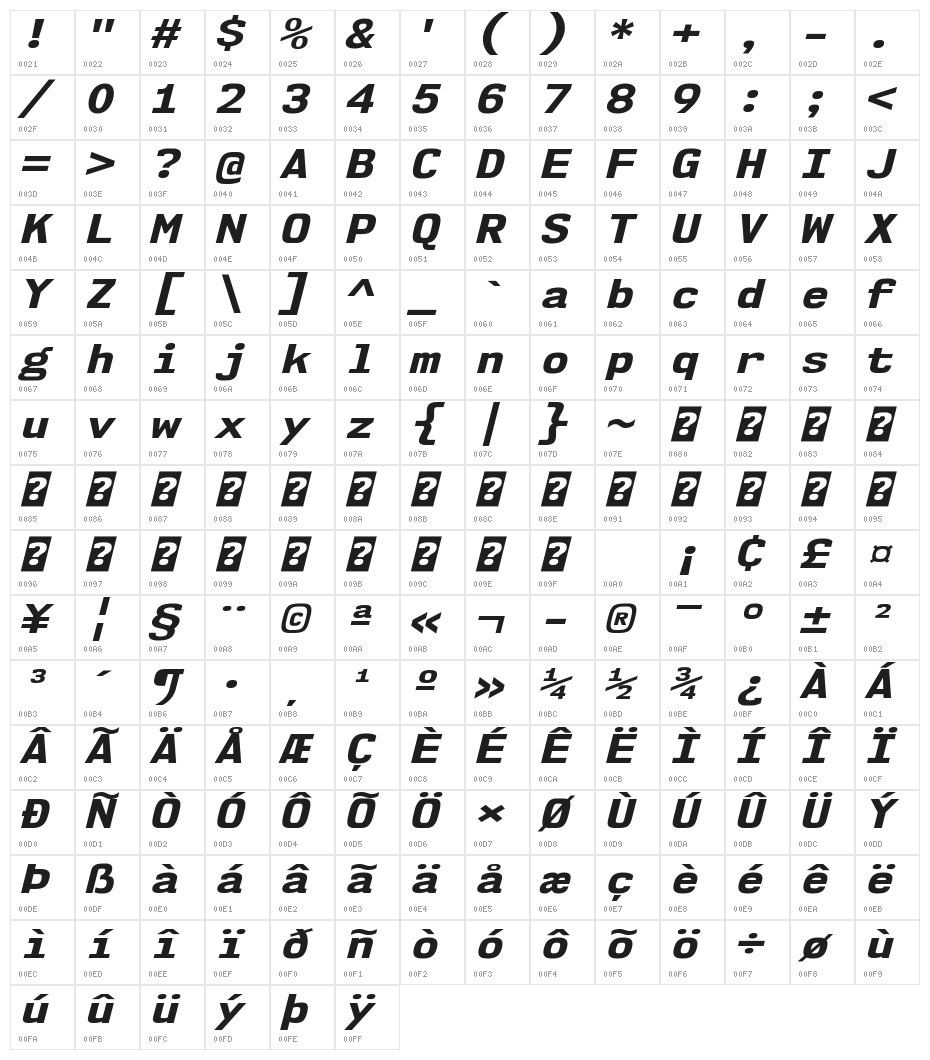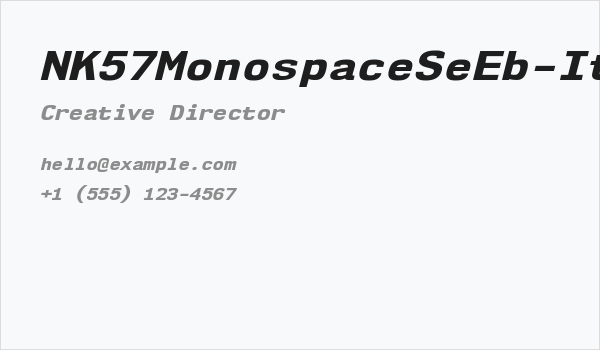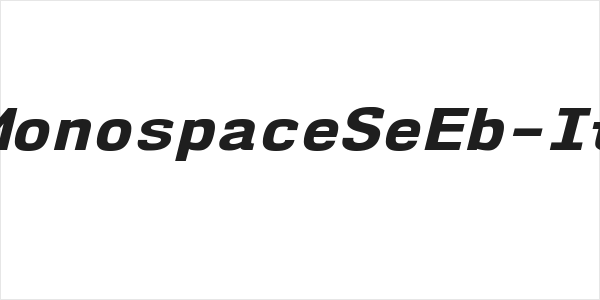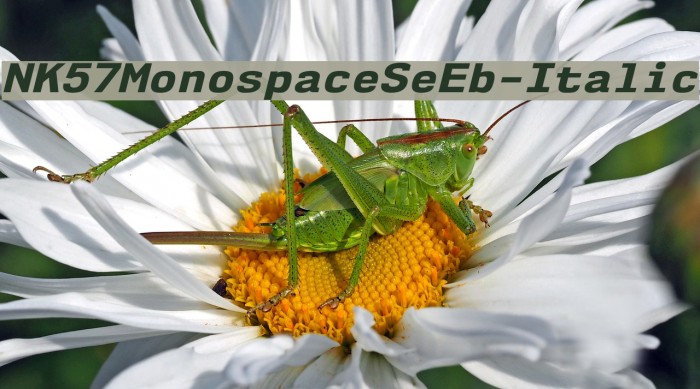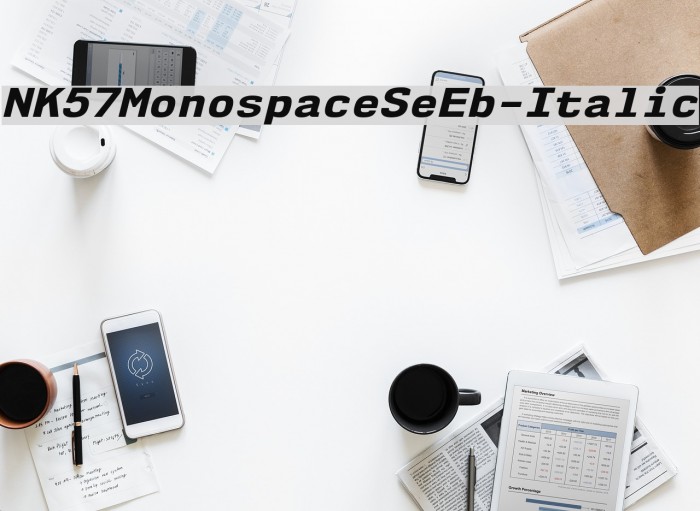
NK57MonospaceSeEb-Italic Font
NK57MonospaceSeEb-Italic Description
This font features a clean, structured design with a monospaced format, ensuring each character occupies the same amount of horizontal space. The italic style adds a dynamic slant to the otherwise rigid structure, creating a unique blend of precision and movement. The characters are bold, with a moderate stroke contrast that enhances readability while maintaining a uniform appearance. The uppercase and lowercase letters are well-proportioned, and the numerals are clear and distinct. Special characters are included, maintaining the same monospaced and italic characteristics, making this font versatile for various applications.
| Use Case | Coding, Technical documentation, Design projects |
| Proposed Projects | Ideal for coding environments, technical documentation, and design projects requiring a modern, structured aesthetic. |